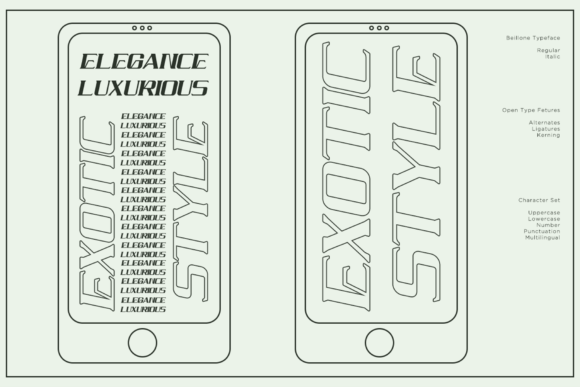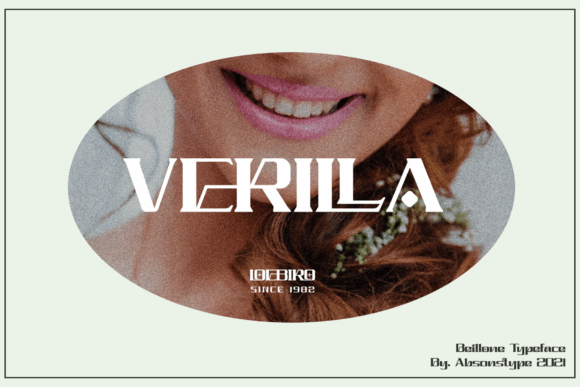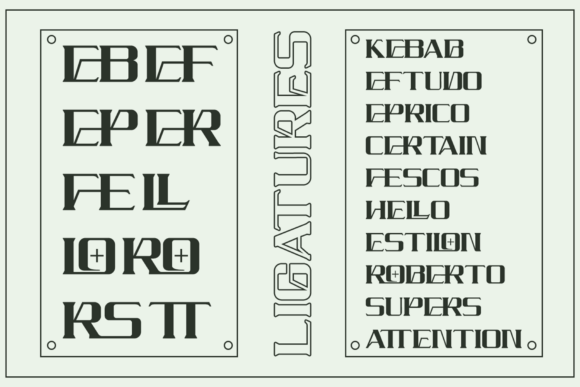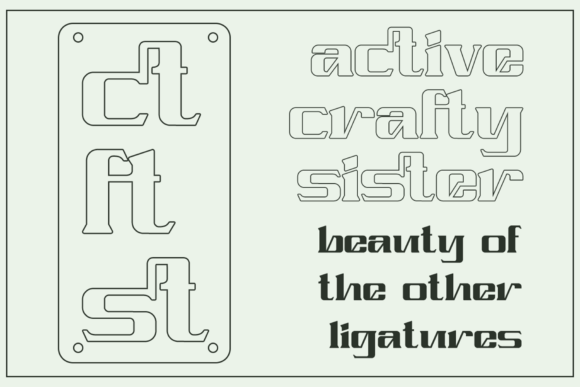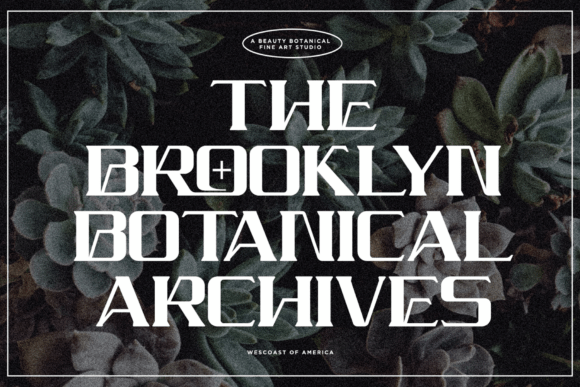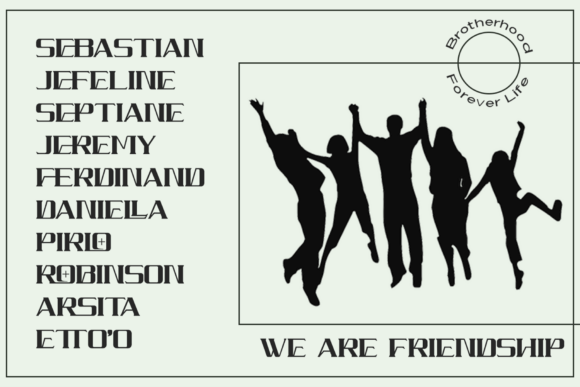
Introduction to Beillone Font
Have you ever been stuck in the middle of a creative project, desperately searching for the perfect font to elevate your design? You scroll through your font library, scrolling through rows of sans-serifs and serifs, but nothing seems to capture the essence of your vision. That’s where the Beillone Font comes in – a game-changing addition to any designer’s toolkit.
Beillone Font is more than just a font; it’s a design resource that’s as bold as it is elegant. Its unique blend of modern and gothic elements makes it perfect for creating high-quality designs that demand attention. Whether you’re working on a branding project, crafting a poster, or laying out an editorial piece, Beillone Font is the perfect choice.
Key Features of Beillone Font
- Offers a clean and modern design, perfect for use in logos, typography, and other creative applications.
Honest Review: Beillone Font
As a designer, I’m always on the lookout for high quality design resources to elevate my creative projects. Recently, I had the chance to work with the Beillone Font, and I must say it’s a great addition to my design toolkit.
- ✨ The font’s clean and modern aesthetic makes it perfect for a variety of design projects, from logos to brochures.
- ⚠️ The font’s character set is somewhat limited, which may not be suitable for complex or multilingual projects.
- ⚠️ The font’s bold weights could be improved for better readability at smaller sizes.
Overall, I’m impressed with the Beillone Font’s potential and would recommend it for designers working on creative projects that require a clean and modern look. With a bit more development, I think this font could be a top contender in the design community.
Common Use Cases for Beillone Font